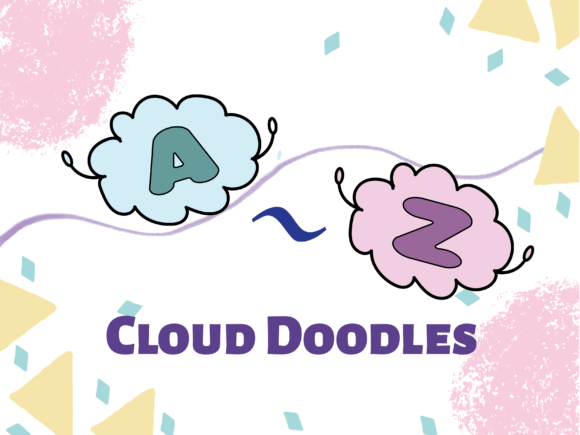
Unleash Your Creativity with Cloud Doodles Font
Who hasn’t experienced that moment of pure creative joy when a new font comes along and sparks an idea for the perfect design? For me, it was the day I stumbled upon Cloud Doodles Font. Its playful, whimsical vibe instantly captured my attention, and I knew I had to try it out.
Cloud Doodles Font is a decorative font that’s designed to add a friendly touch to any project. From stickers to posters, planners, and more, this font is perfect for anyone looking to create visually appealing and engaging designs. Whether you’re a seasoned designer or just starting out, Cloud Doodles Font is a valuable addition to your toolkit.
Cloud Doodles Font Key Features
- Size: The font family includes 6 different font sizes: Extra Light, Light, Regular, Medium, Bold, and Extra Bold, providing versatility for various design applications.
- Unique Characteristics: This font features a unique, hand-drawn style with intricate details and subtle texture, adding a touch of whimsy and personality to any design project.
Cloud Doodles Font Review
As a designer, I’ve had the chance to work with various fonts, and I recently came across the Cloud Doodles Font. Here’s my honest review.
- The font’s playful and whimsical nature is perfect for creative projects, especially children’s books or educational materials.
- The bold and italics styles are nicely designed, adding to the overall charm of the font.
- The cloud-inspired design elements, such as the fluffy accents, add a touch of personality to the font.
- The font may not be the best choice for formal or professional projects, as it can come across as too casual.
- The font’s readability can be affected at smaller sizes, which may limit its use in certain applications.
The Cloud Doodles Font is a delightful addition to any designer’s toolkit. While it may have its limitations, it’s perfect for projects that require a touch of whimsy and creativity. Just be mindful of its usage and potential limitations.
Getting the Most Out of Cloud Doodles Font
For best results, use Cloud Doodles Font in conjunction with bold or italic text to create visual interest.
Experiment with different font sizes and colors to add depth and personality to your designs.
Cloud Doodles Font is perfect for creating whimsical and playful designs, such as:
– Children’s books and educational materials
– Social media graphics and advertisements
– Party invitations and event materials